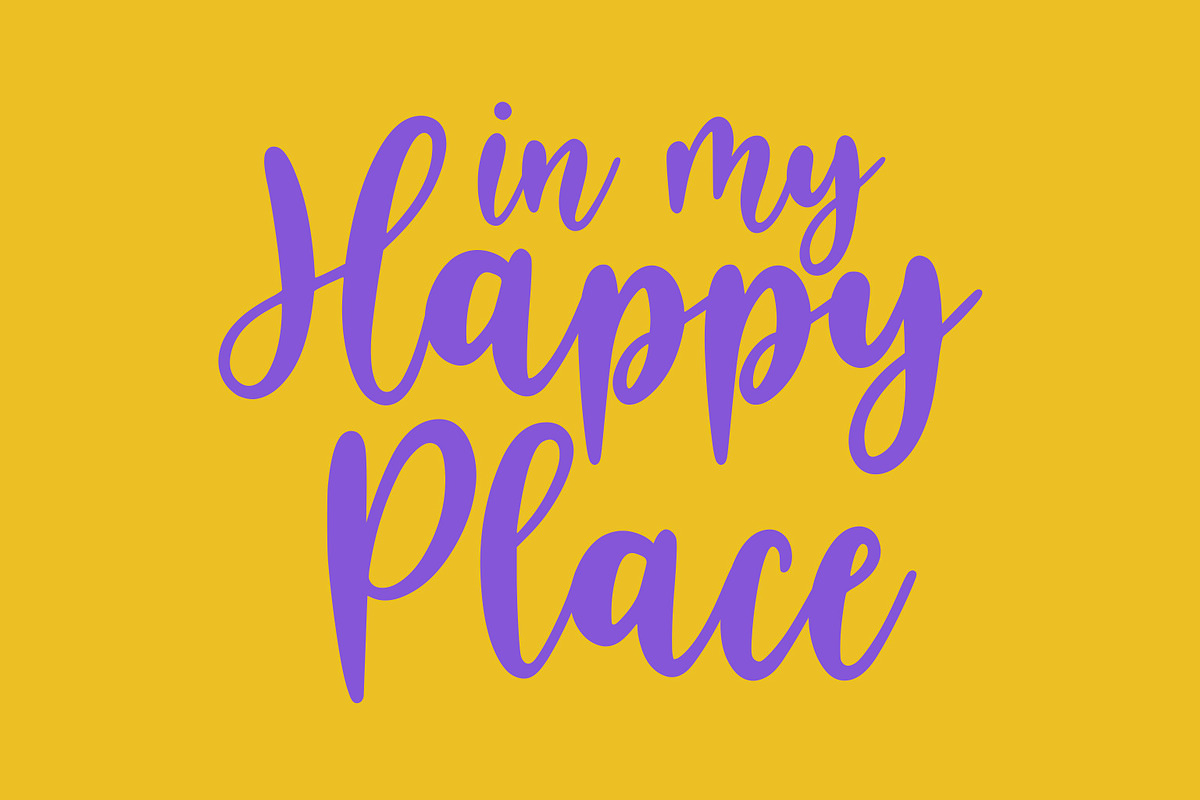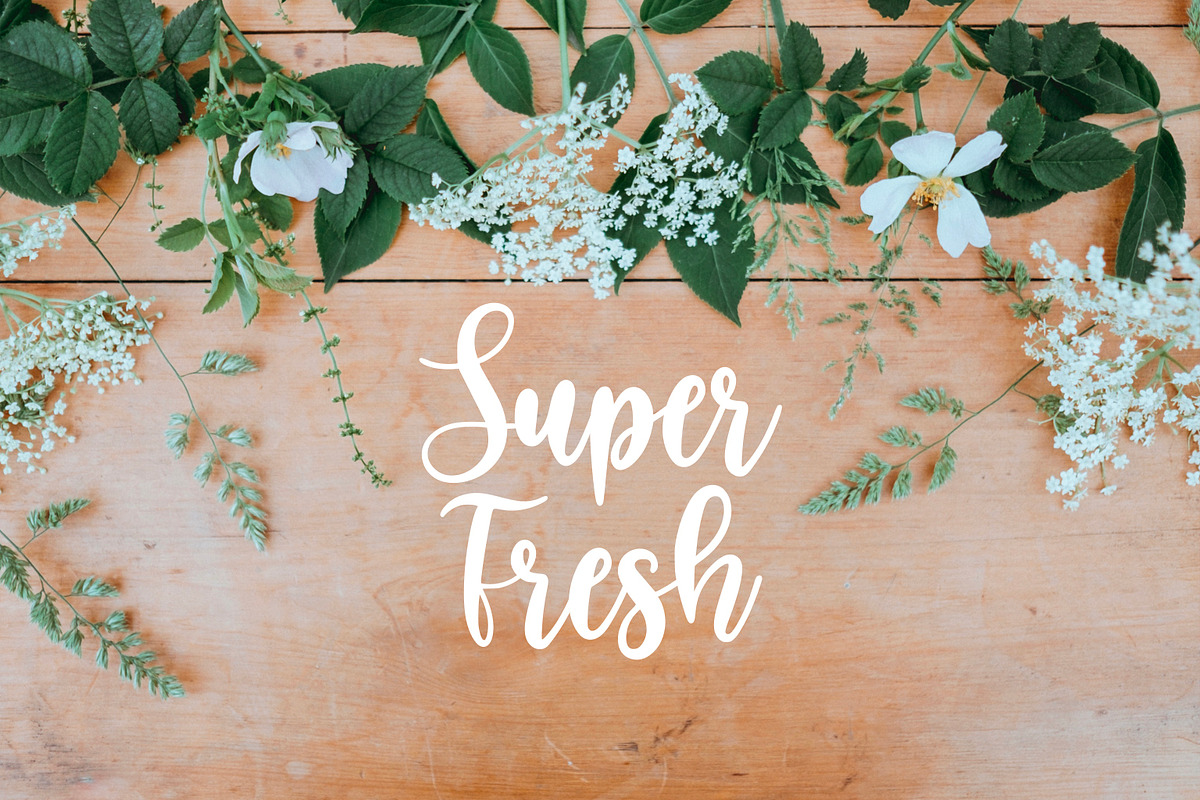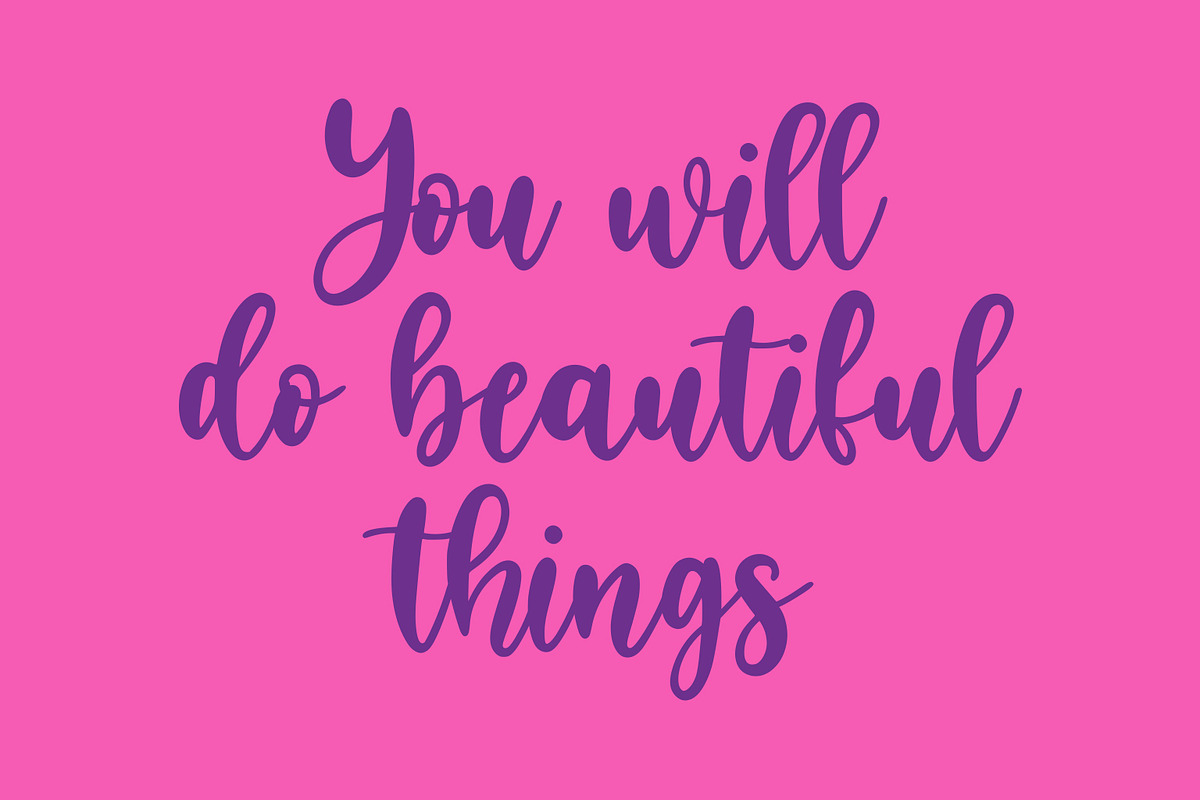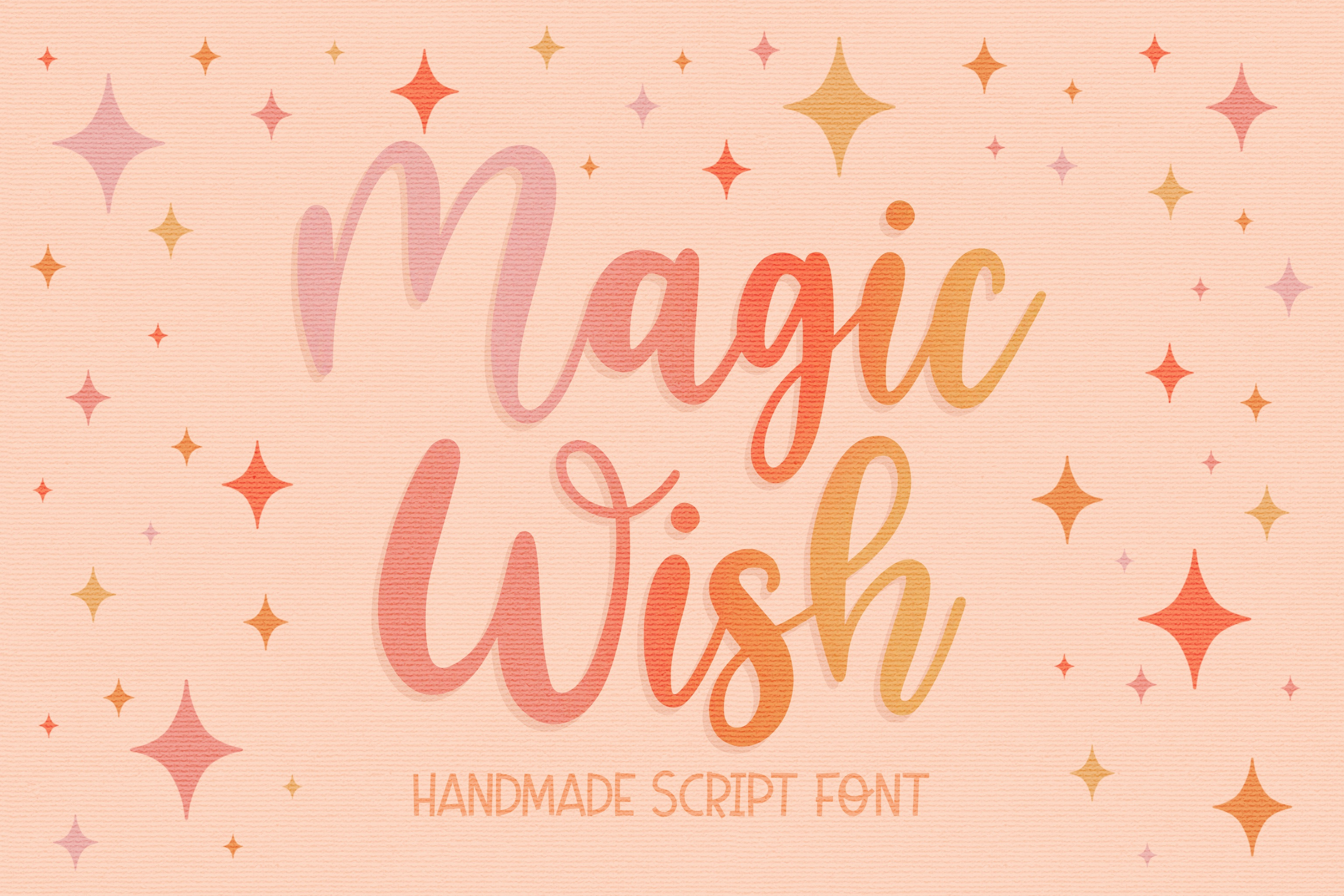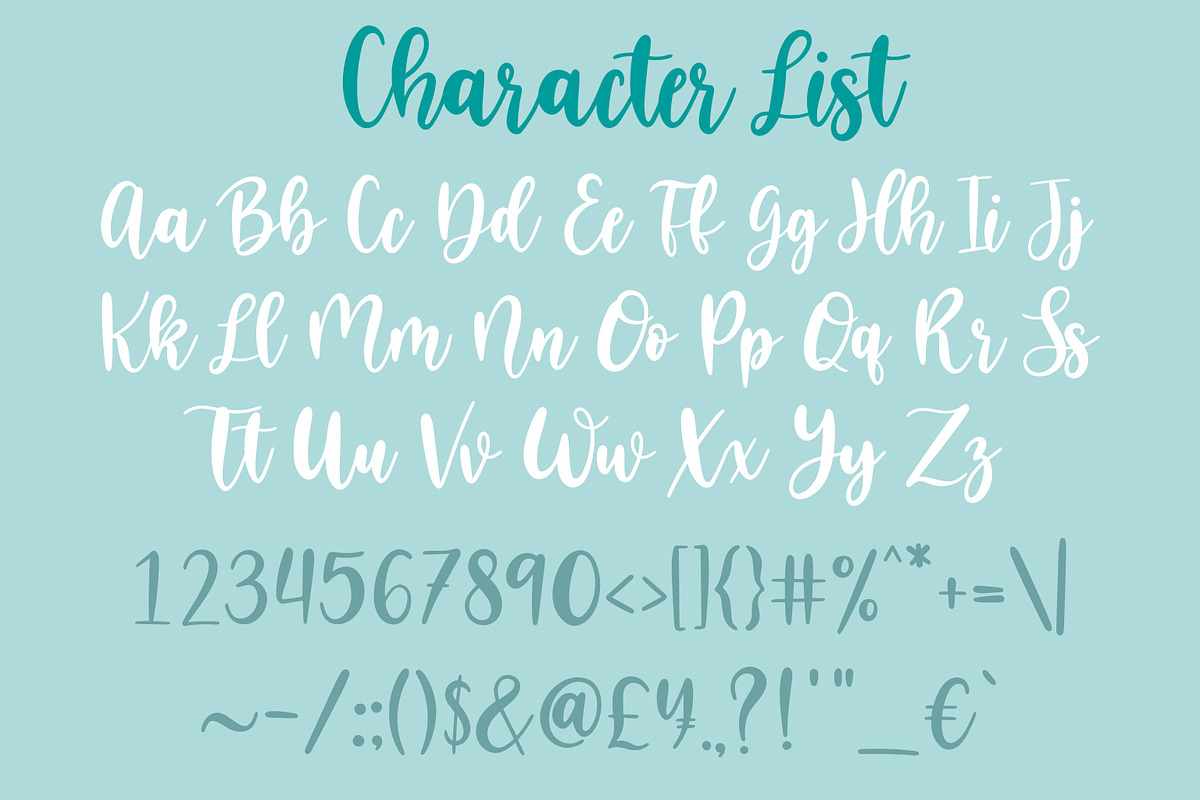
Magic Wish Handwritten Script Font
Introducing the Magic Wish handwritten/hand drawn font. This fun, bouncy script font is perfect for any design. It works great for branding, logos, posters, magazines, quotes, or even tattoo designs. It add a personal touch, that’s cute and playful, yet also elegant and rustic1